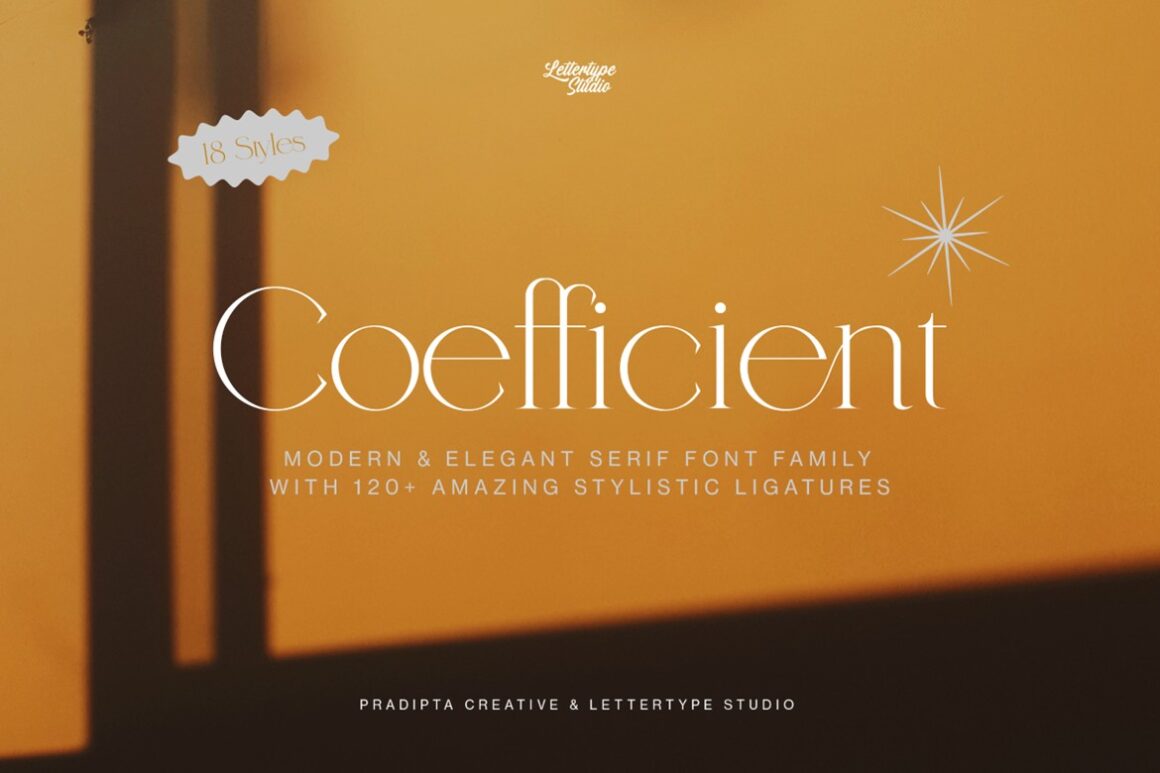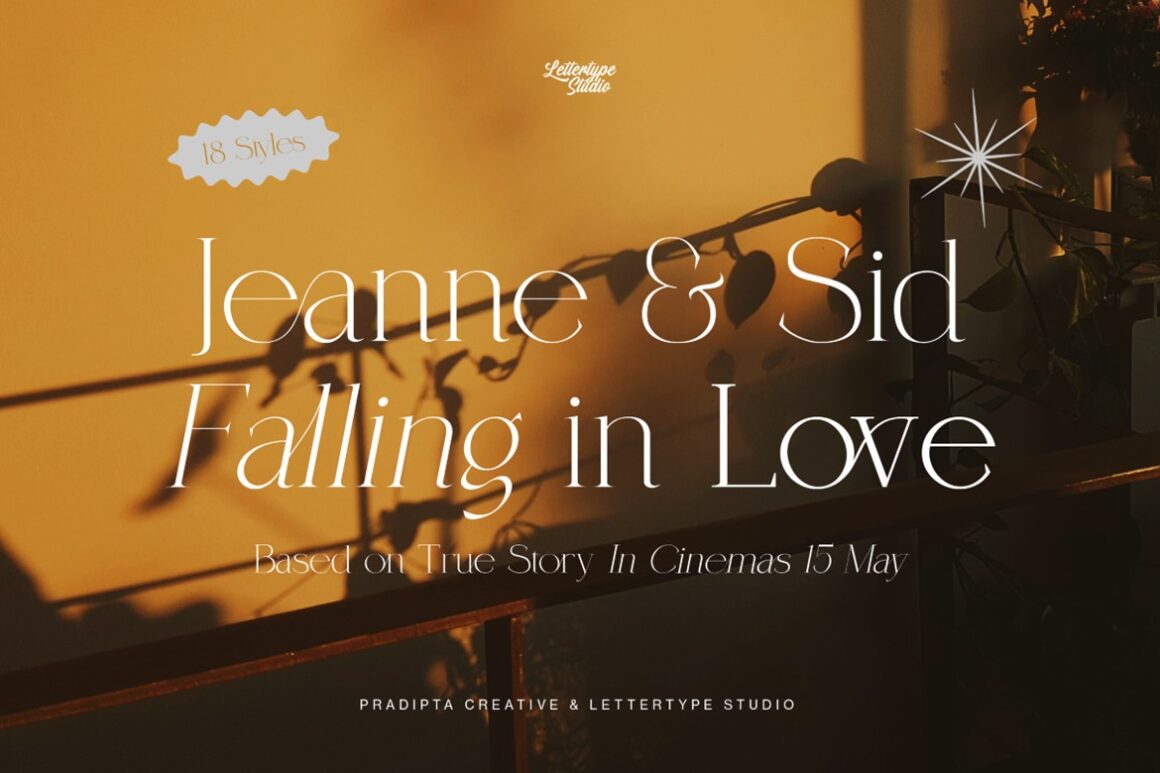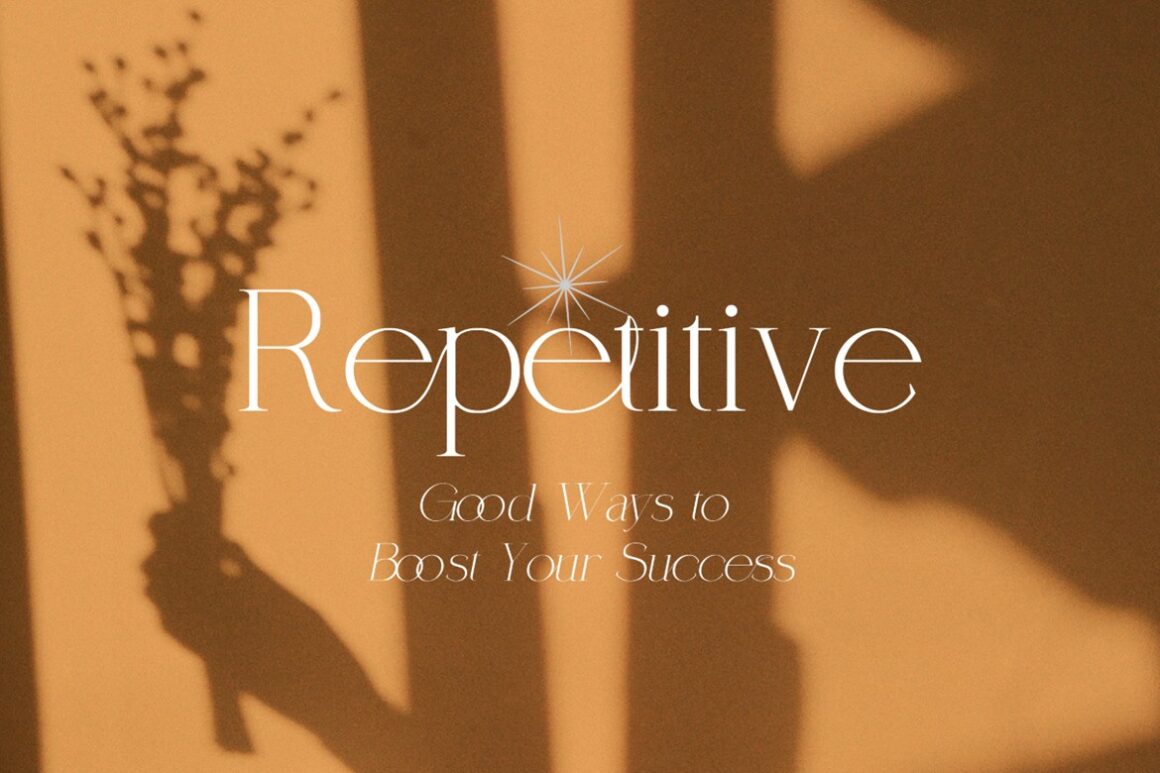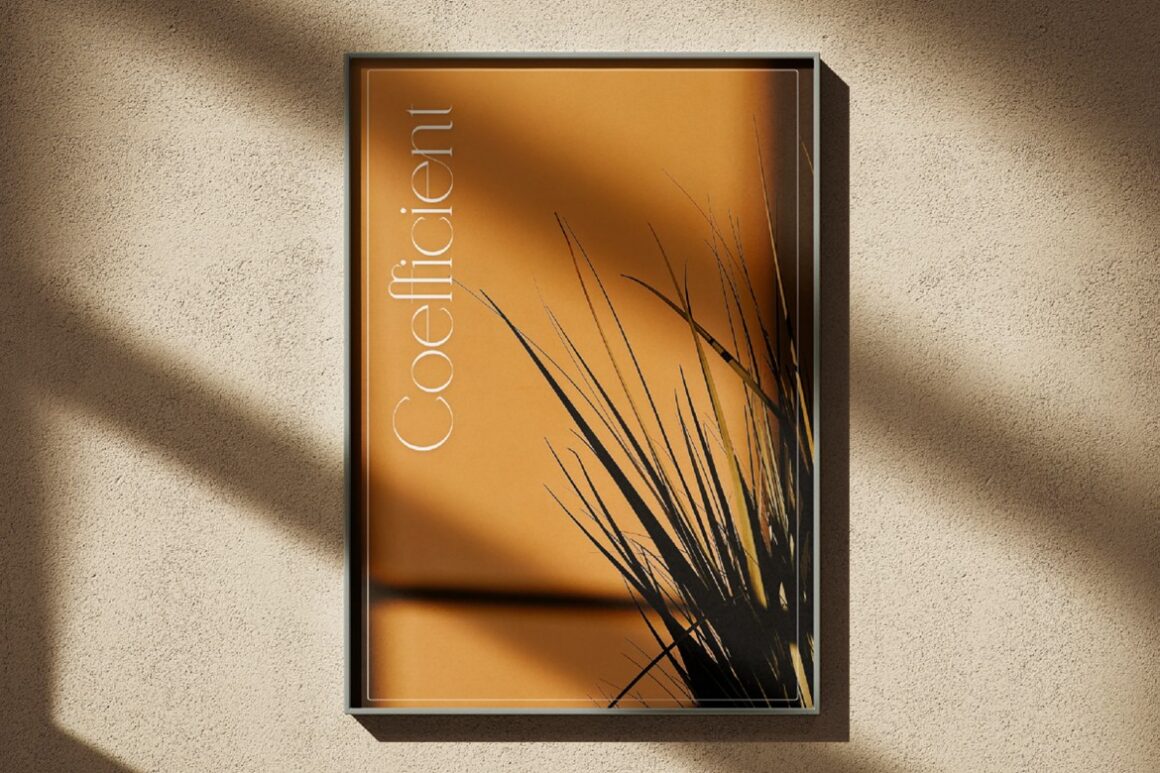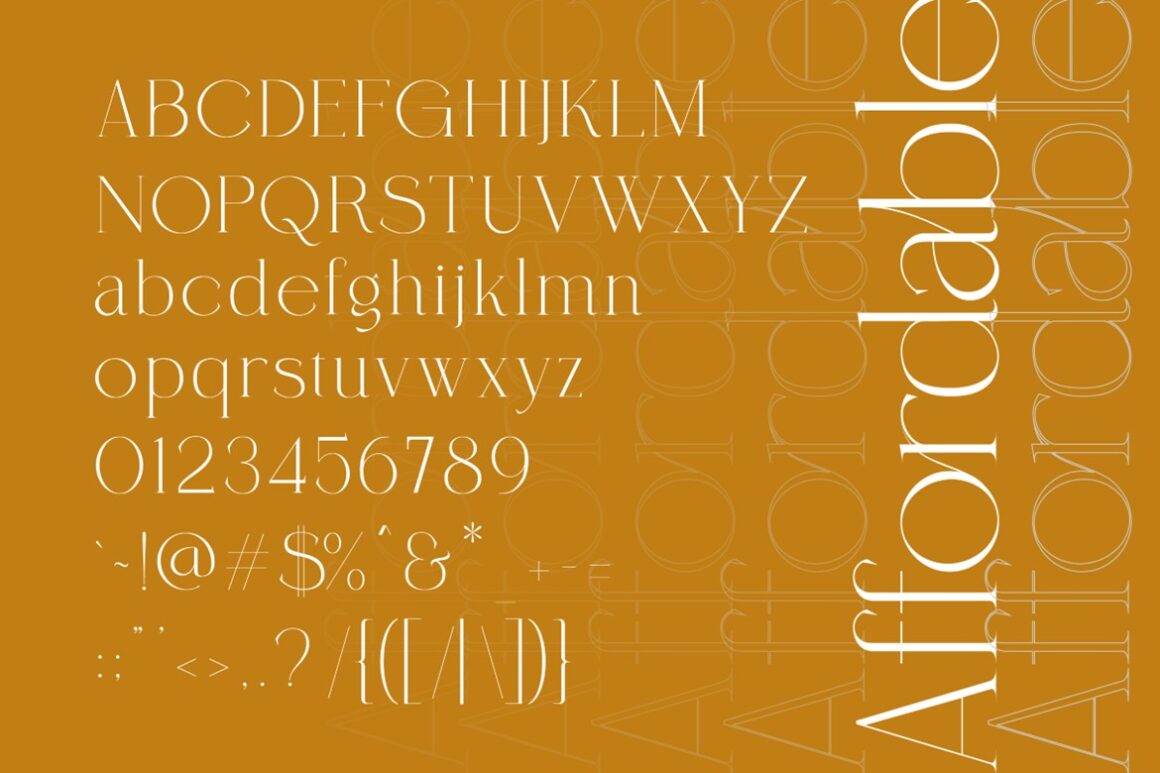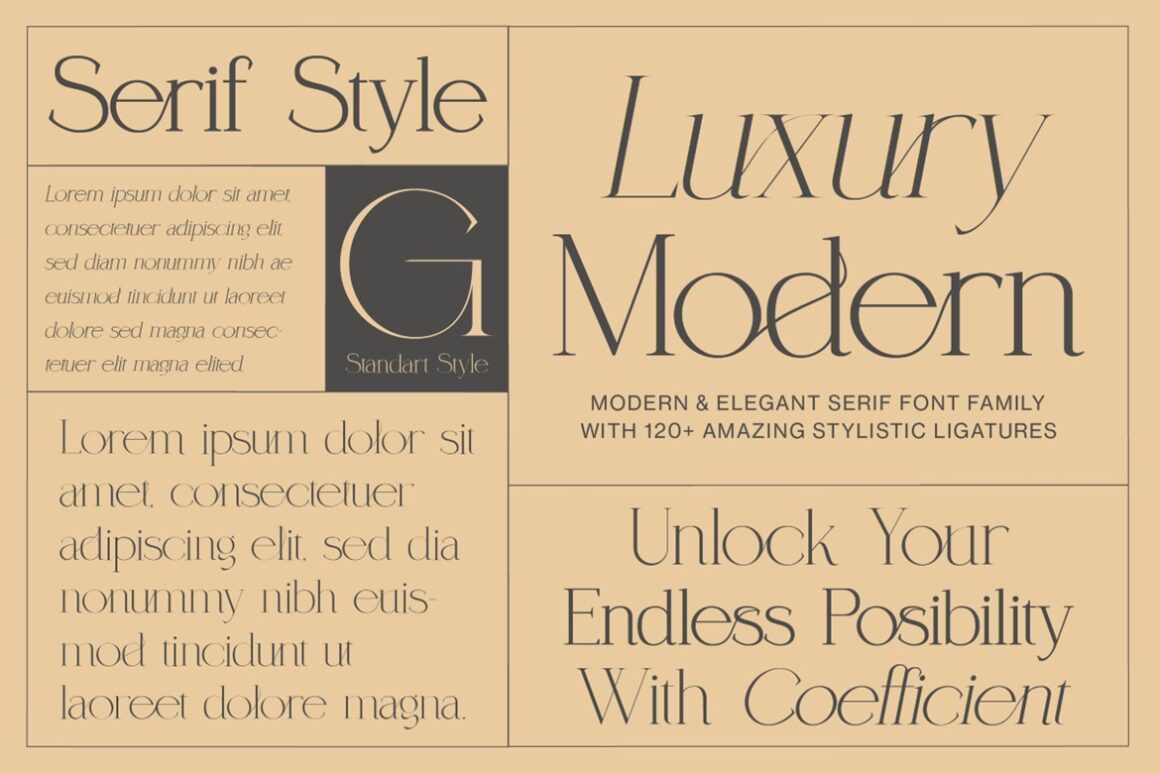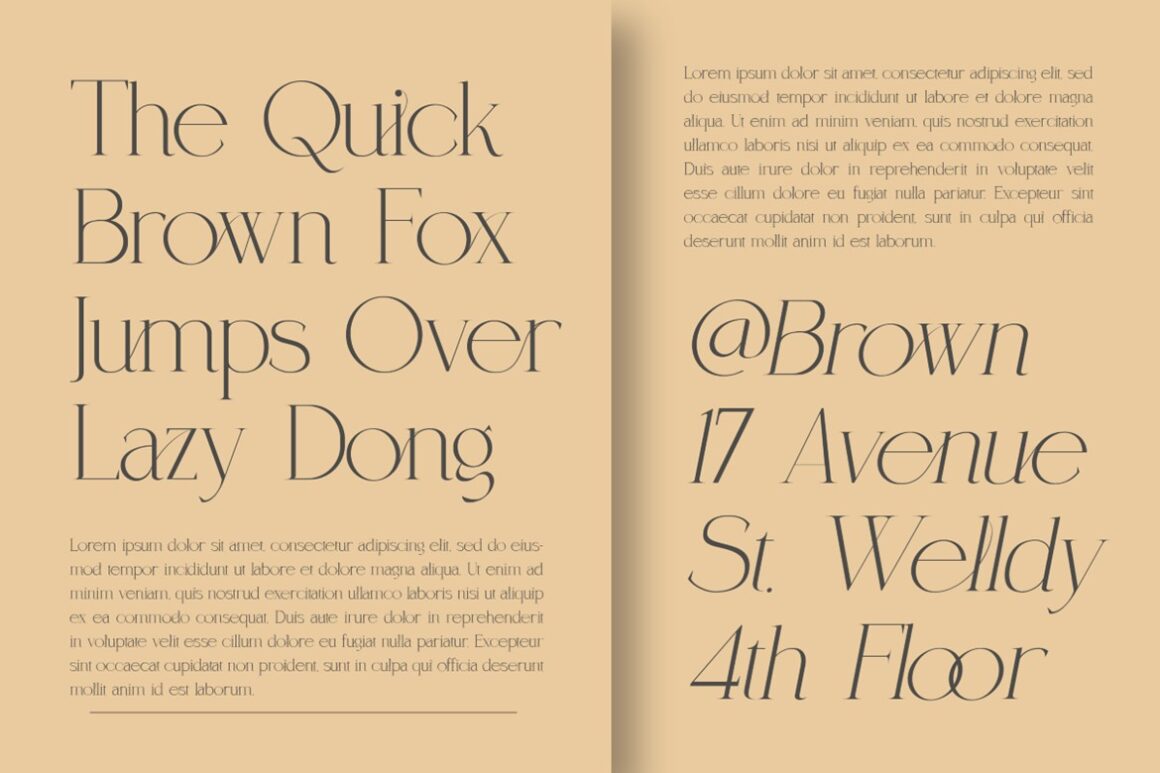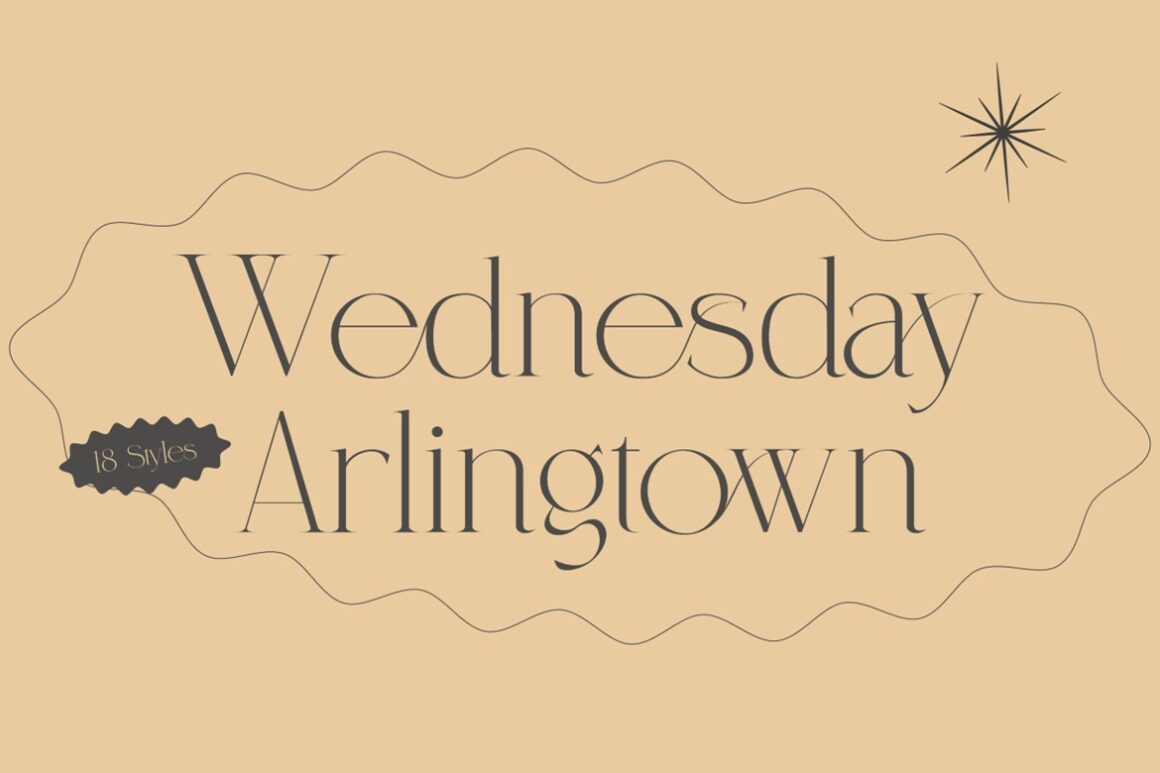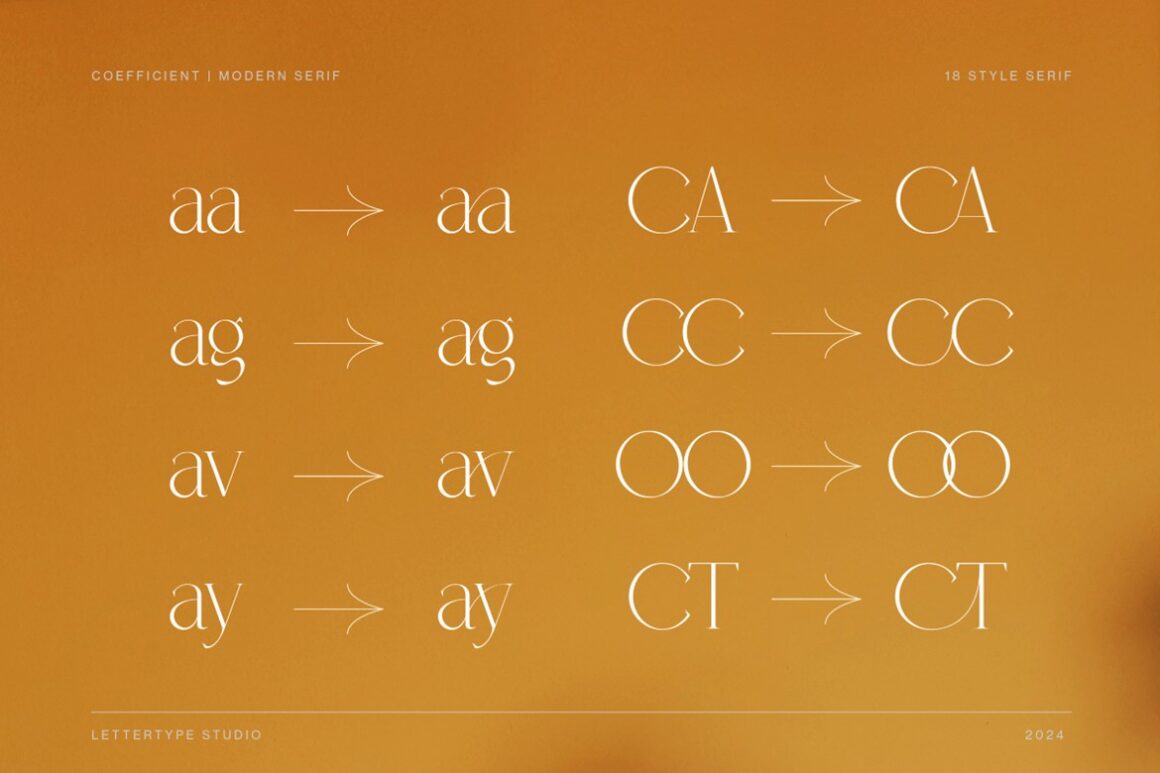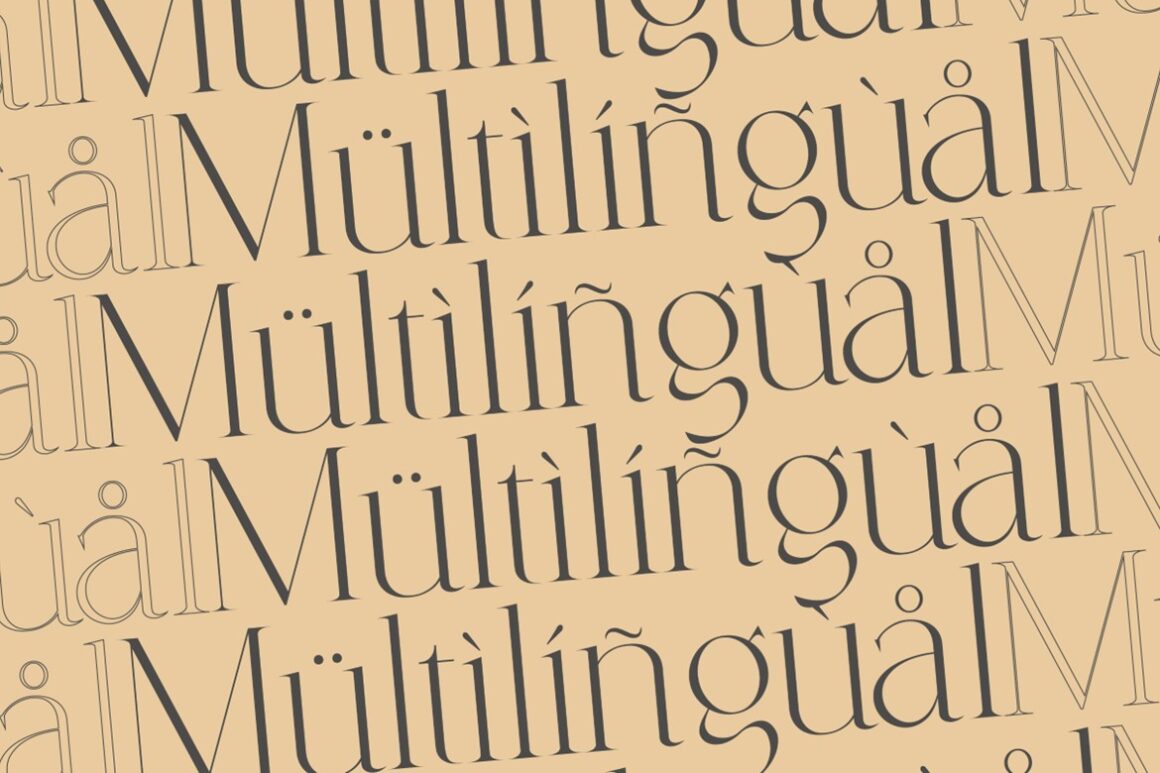
Coefficient is a modern elegant serif font family inspired by 18th-century typography. With 18 styles, 120+ ligatures, and refined geometric details, it offers both sophistication and versatility for professional design work. Its timeless aesthetic makes it ideal for luxury branding and high-end editorial layouts.
Perfect for magazines, web typography, and classic branding, Coefficient delivers a sense of refinement and structure in every composition. Whether used for digital or print design, it elevates projects with an enduring blend of modern elegance and vintage charm.
Coefficient Features:
• Lowercase & Uppercase
• Numerals & Punctuation
• Alternates & Ligature
• Multilingual Support
• Font Family (18 Styles, Normal & Italic)